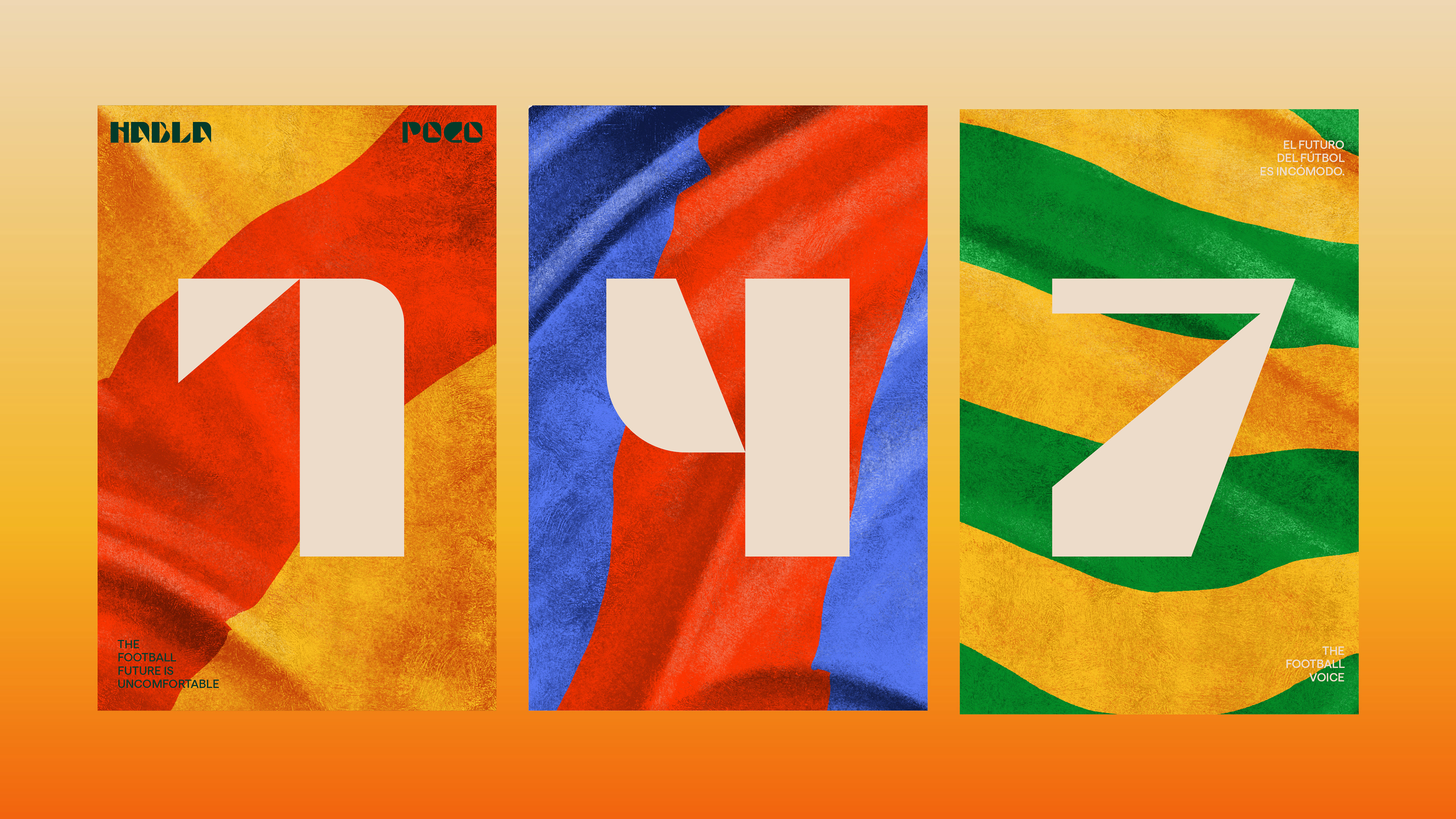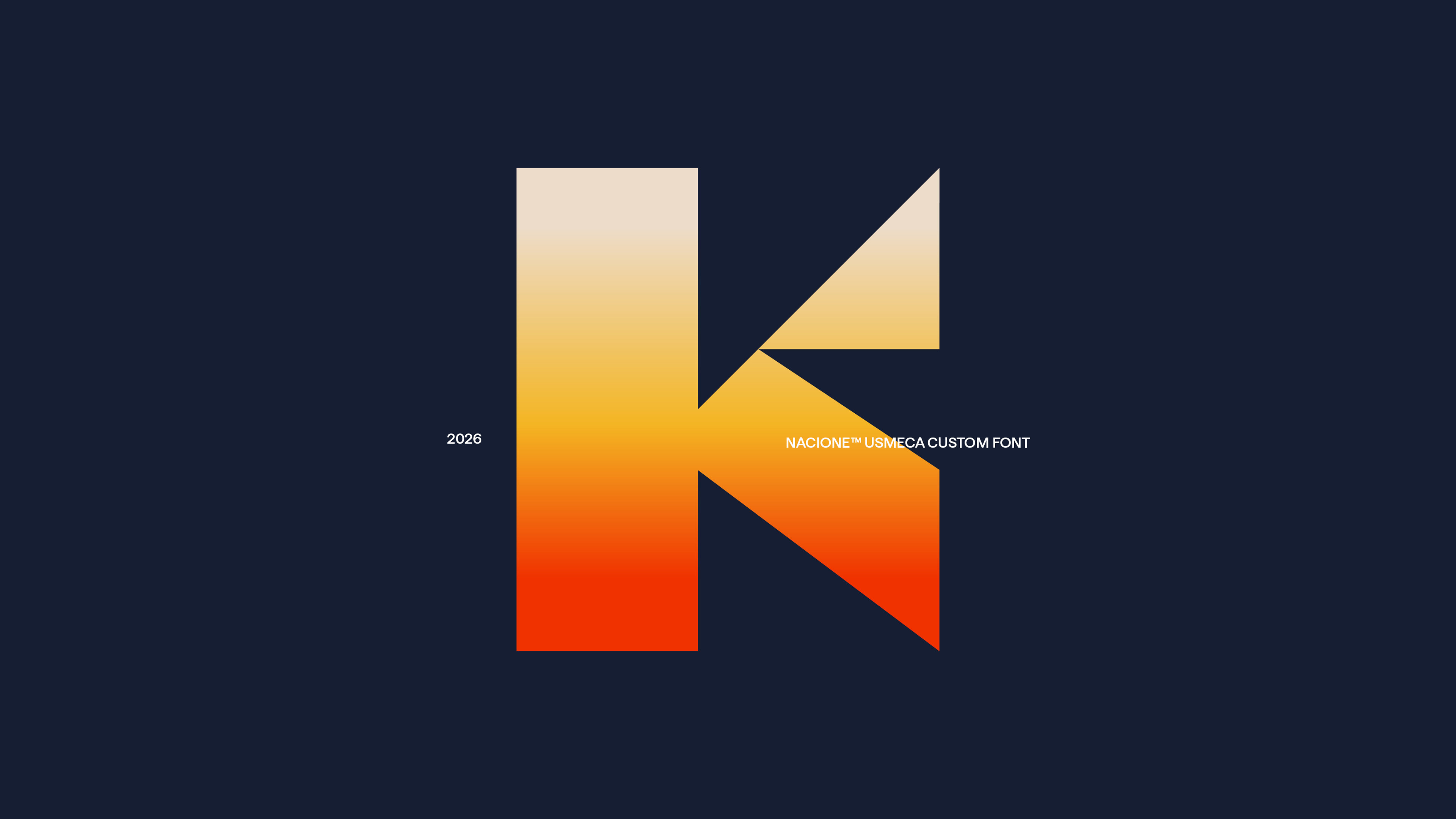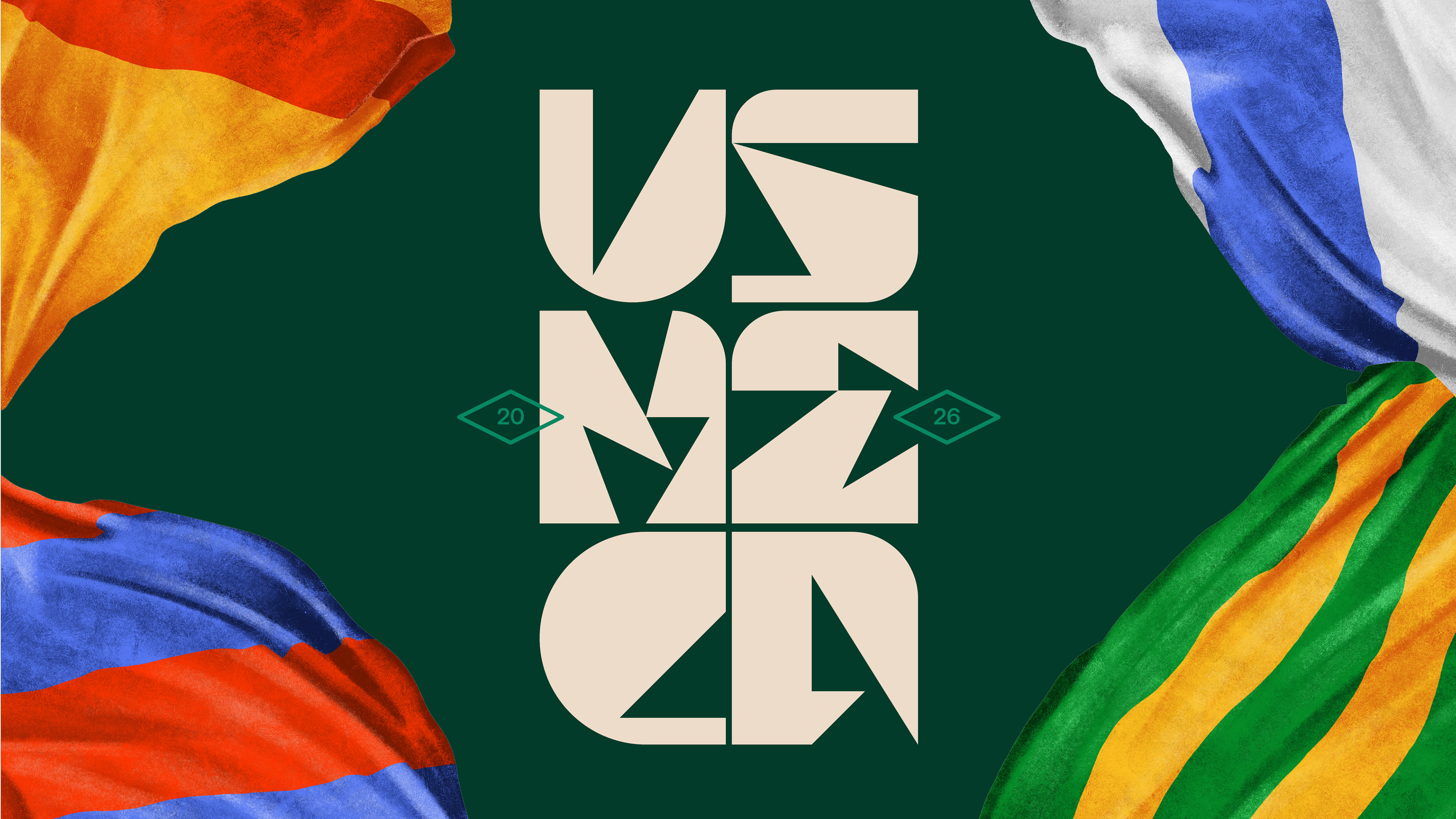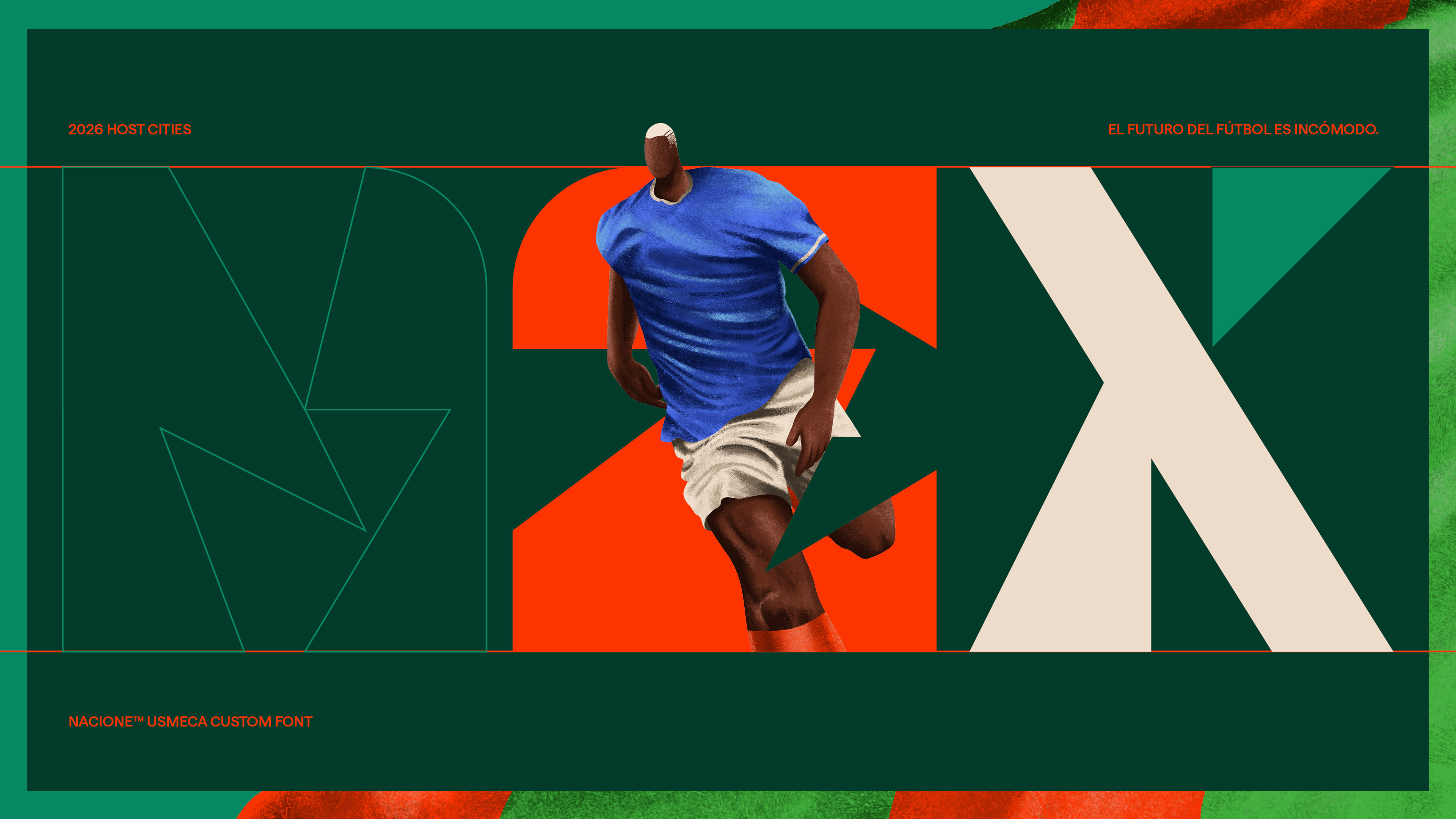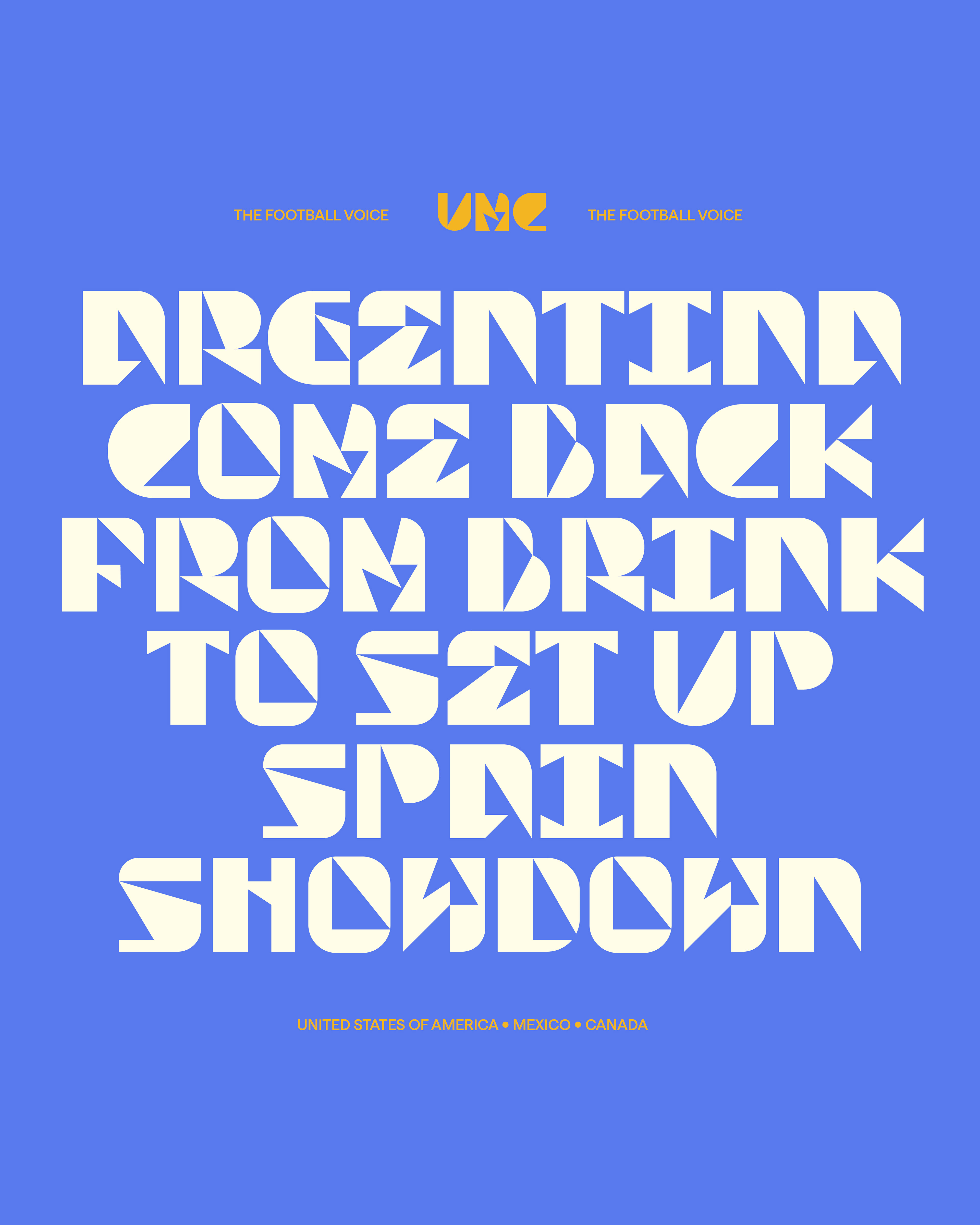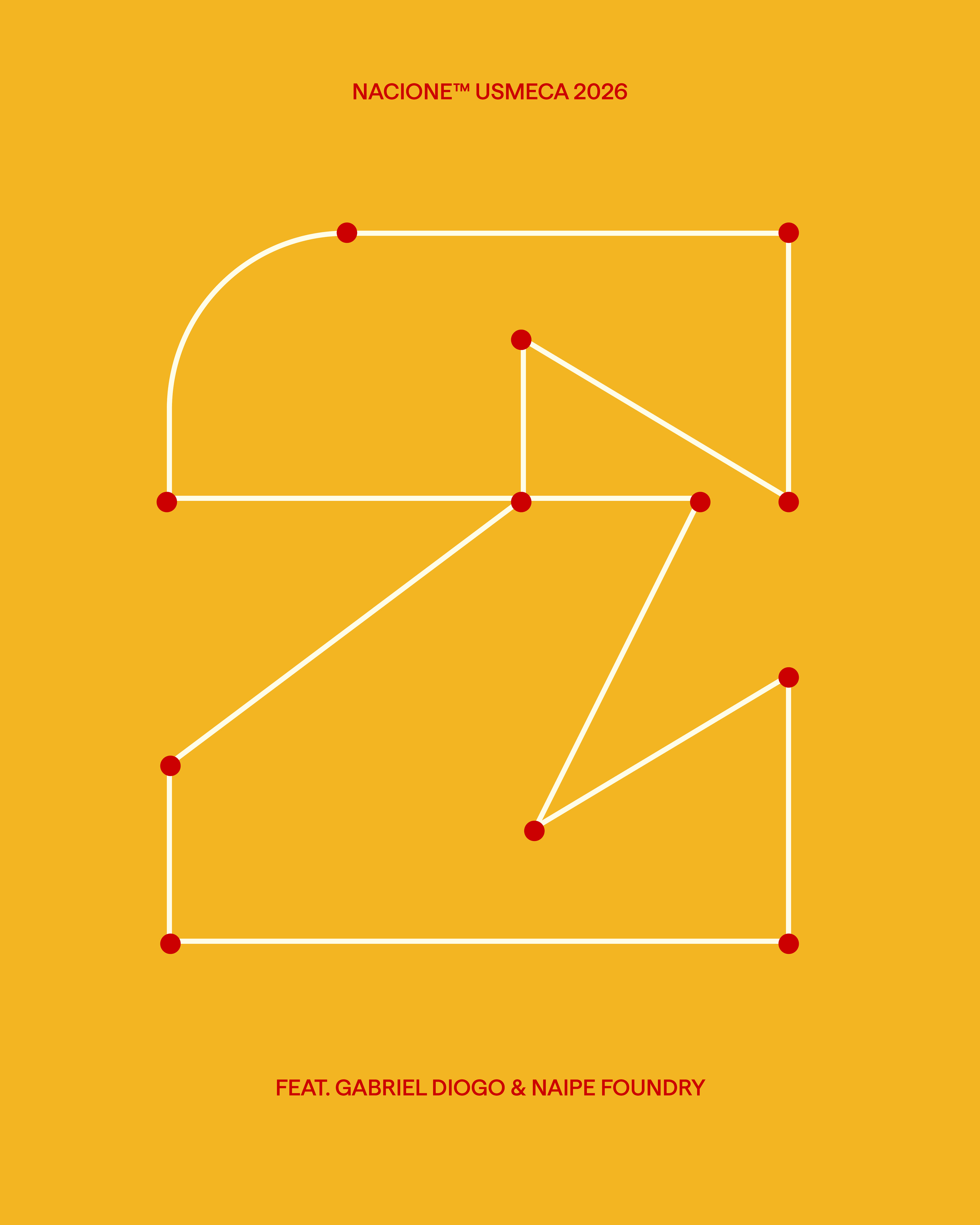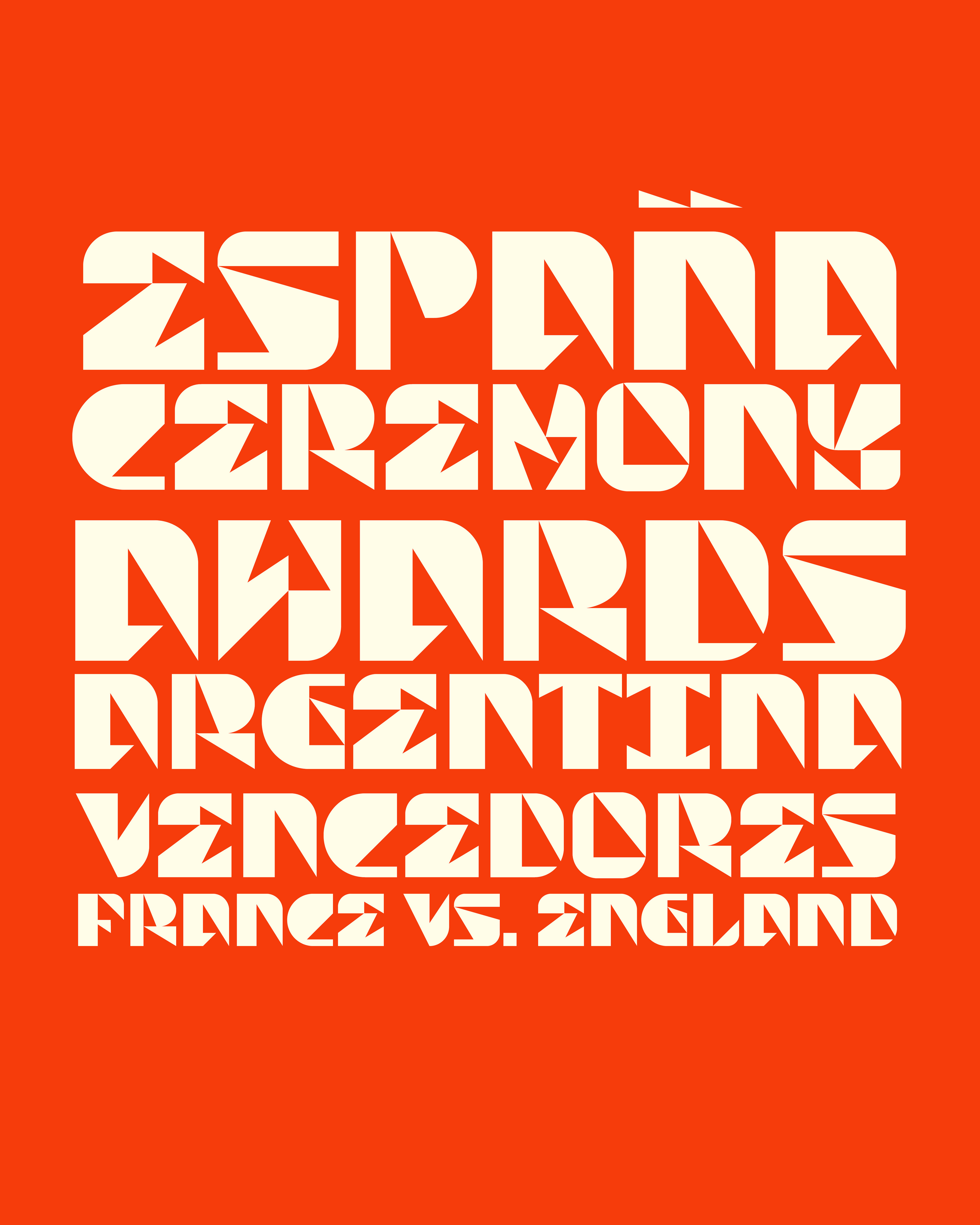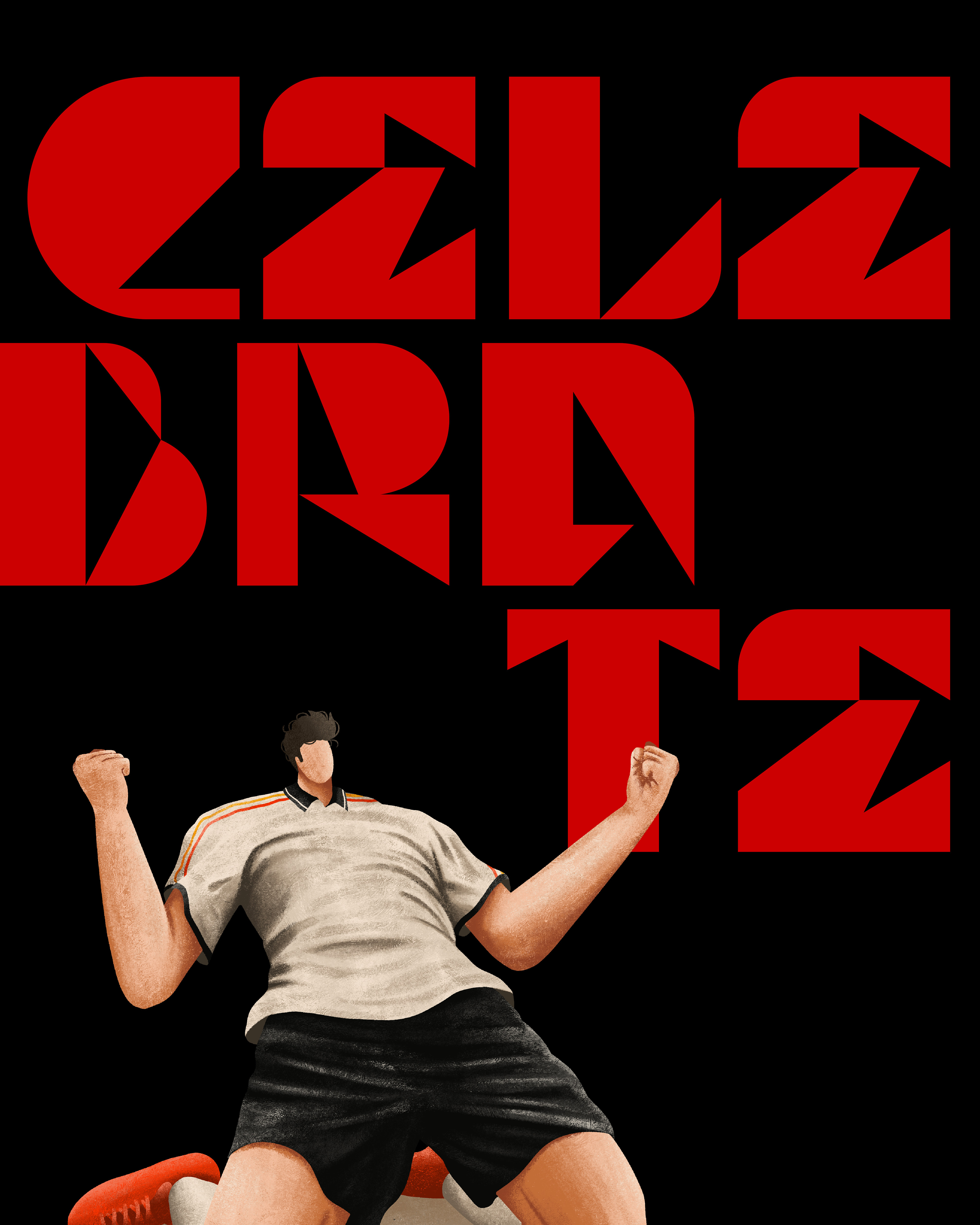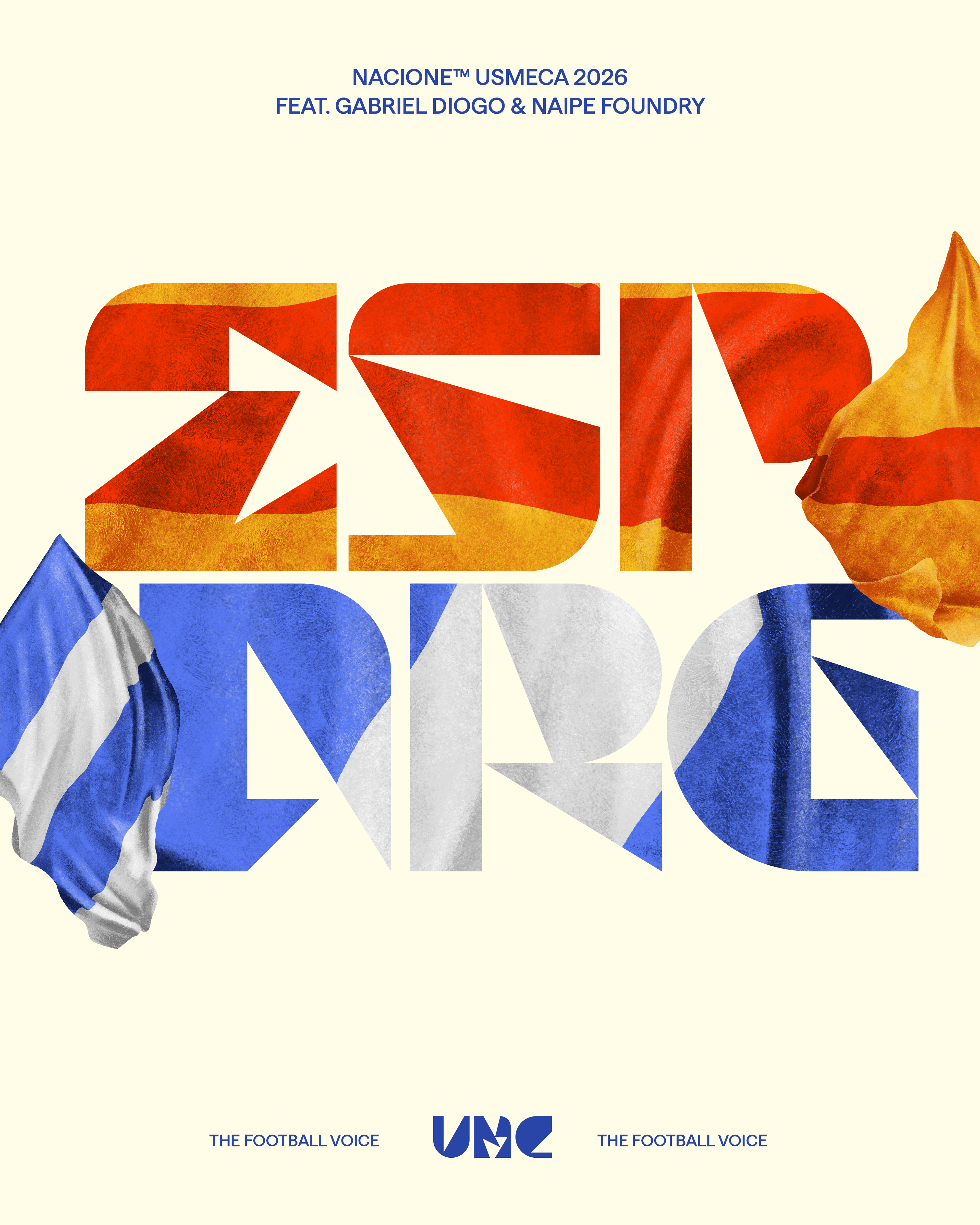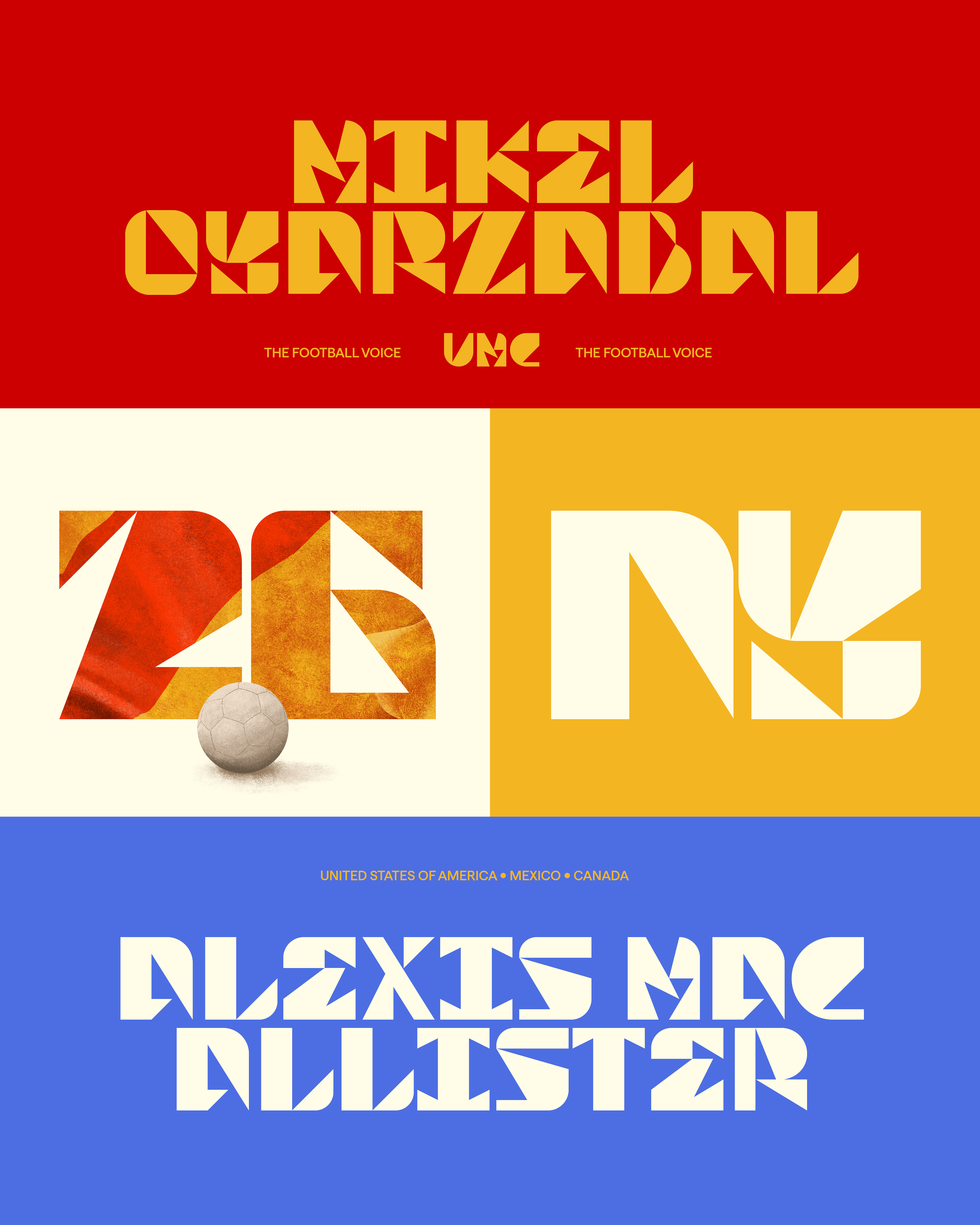
UsMeCa 2026 Typeface
Developed by Nacione™ Branding
UsMeCa typography is a commemorative work made in honor of the World Cup in 2026, and follows a sequence of projects that are developed in years of competition by Nacione™.
For this project, legibility is not a requirement. It is an opportunity to be bold and explore ideas that reflect the spirit of the times—a chance to break free from the constraints often imposed by commercial projects and create something purely for the sake of experimentation, without concern for utility. It exists at the boundary between art and design.
The flags and athletes depicted in illustrations by Gabriel Diogo—invited for his distinctive style, which celebrates both the sport and the everyday reality of South American football—form textures that layer with the typography. Together, they create vibrant visual compositions that capture the emotion and speed of a game that constantly evolves yet never loses its allure.
We also bring aboard Naipe Foundry, guided by Álvaro Franca and Felipe Casaprima, to work on font production and working on the meticulous details that make up the final file—spacing, accentuation, and punctuation.
The concept behind the UsMeCa typeface was inspired by modern football: tactical, rigid, and structured in blocks, where players rarely stray from their assigned roles. We missed the unexpected moves, the dribbles, and the rebellious urge to defy the coach's instructions.
Working within a strictly constrained grid, we created a limited set of "plays." With few curves and a restricted visual vocabulary, we had to clearly distinguish letters from numbers, resulting in a bold display typeface. Right angles create colorful, modular compositions that challenge the very nature of writing.
The future of football is unsettling: standardized and structured. Yet it still leaves room for bold creativity.
The future of football is unsettling: standardized and structured. Yet, it still leaves room for bold creativity.